Top 15 Best Fonts For Food Packaging to Bring In Customers
The best fonts for food packaging communicate your brand’s message to your customers with their simplicity and legibility. However, many food packages apply fonts with decorations yet without overly dramatic details. With our fonts, you can impress your customers without confusing them.
Key Takeaways:
- Simple strokes increase the chance of communicating well with your customers
- Letter shapes with uncomplicated details can be necessary to attract attention and represent your brand’s voice
- Combining fonts with different styles may make your packaging more distinctive
15 Best Fonts For Food Packaging That Are Eye-Catching
According to Celhay et al., the main purpose of typefaces in food packaging is visual communication, and thus one of their characteristics should be legibility. However, some details on the letter forms are perhaps necessary. The list below can help your brand to not only be clear but also attractive.
1. Wilder Artwork
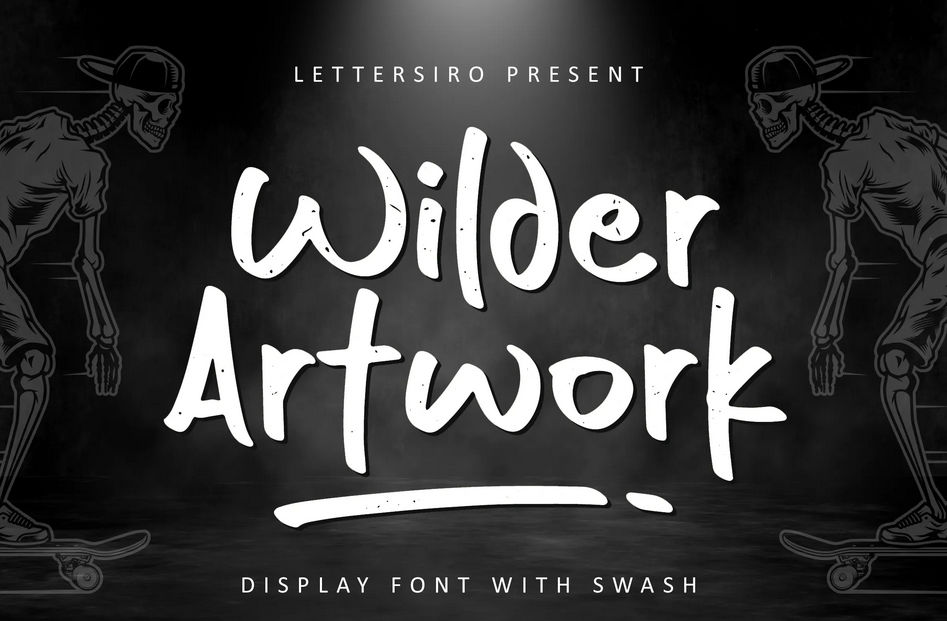
Wilder Artwork captures the appearance of street art without flashy details and exaggerated thickness but with clear lines and free-spirited letter shapes. Exhibit the font on snack and sweets packaging.
2. Dinofont
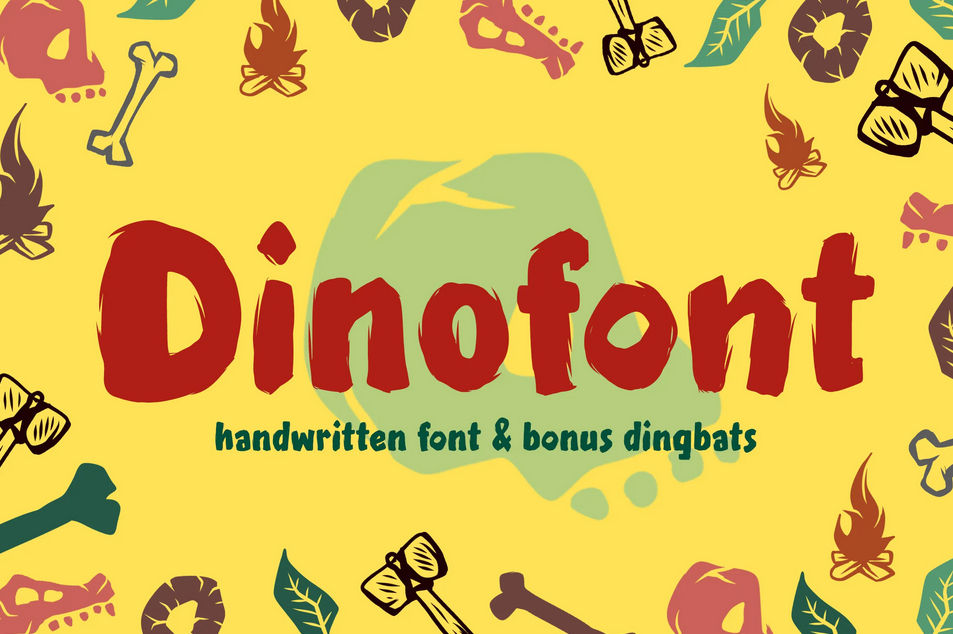
Dinofont’s fur-like letter forms are modest yet playful. Bring the prehistoric appearance of the font on your children-themed food packaging to catch attention.
3. Bros Bear Kids and Educational Font
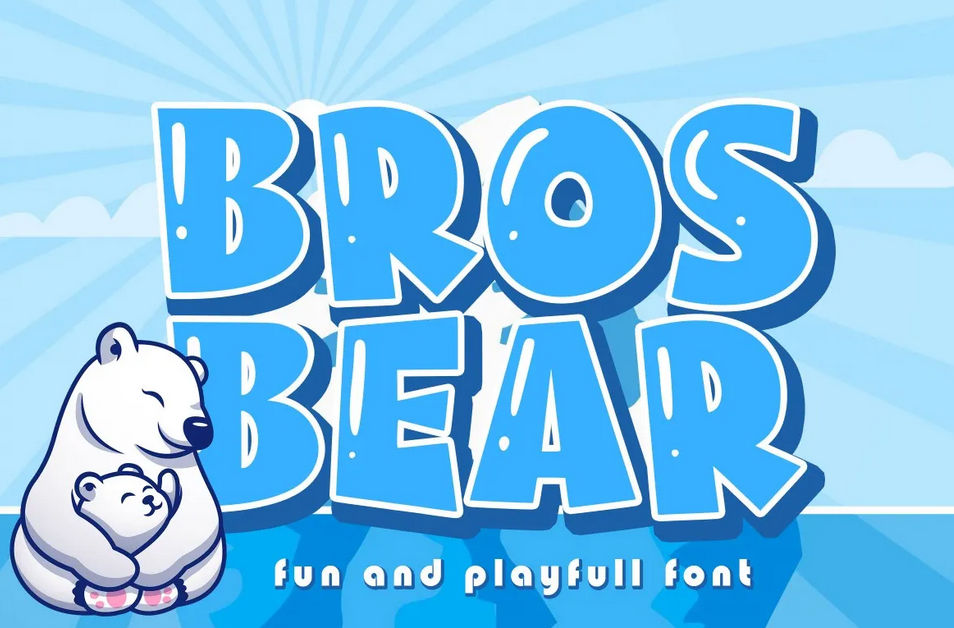
Bros Bear exhibits cheerfulness with the readable boldness and the exclamation mark decorations on the legs. Engage your young audience with the refreshing font.
4. Honey Crafter – Vintage Font
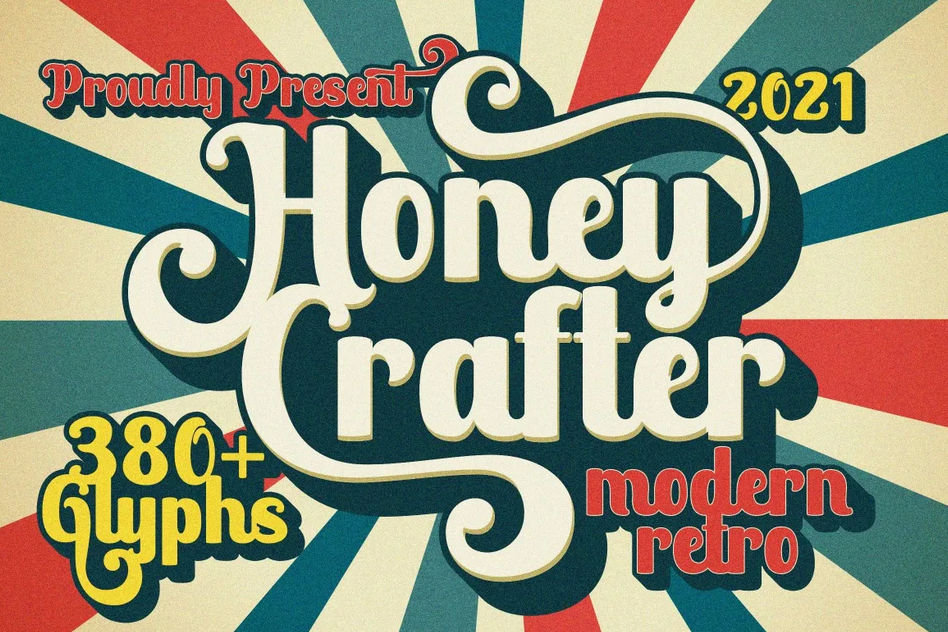
Honey Crafter’s uniqueness is the entertaining swashes with a retro vibe. Apply the legible letter shapes and interesting contrast for your brand name on food packages.
5. Almond
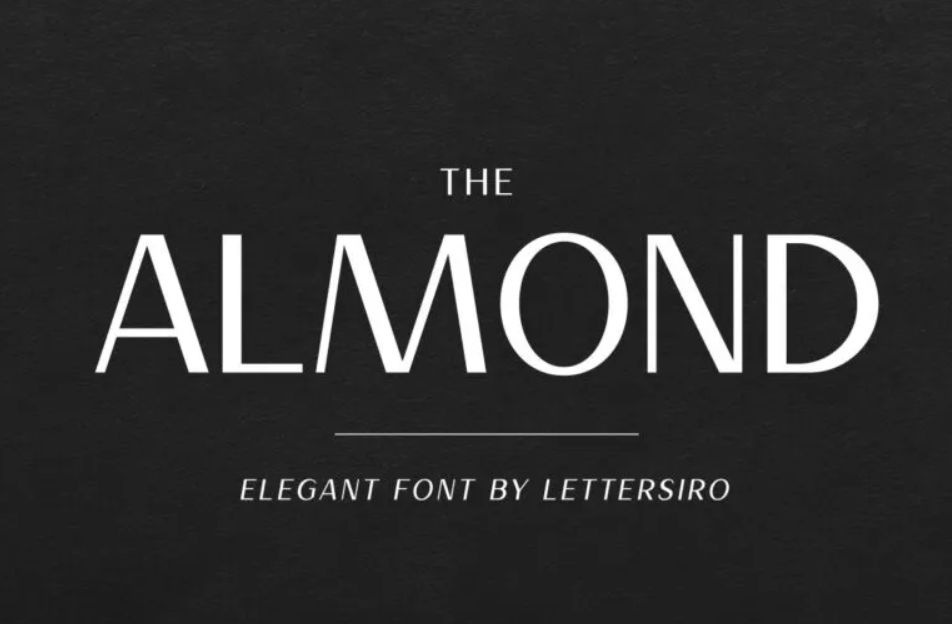
Almond is one of the best fonts for food packaging because of the font’s beautiful contrast and simplicity. Showcase the font to add elegance to your packaging.
6. ZEMBOOD
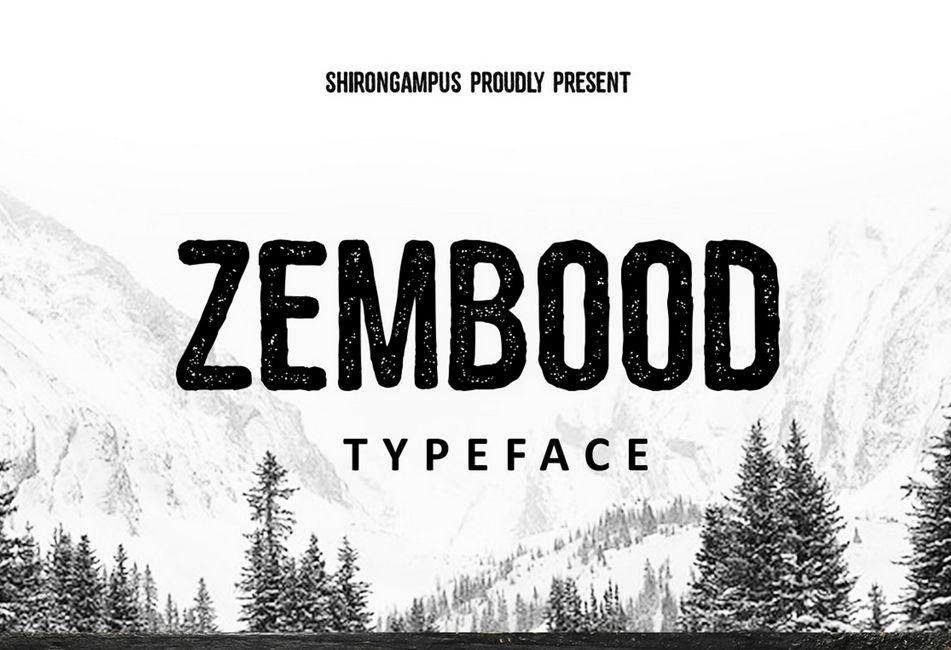
Zembood’s charm is the consistent yet unexaggerated thickness. Additionally, the falling-snow-like texture will make your food packaging more distinctive.
7. Today Easter
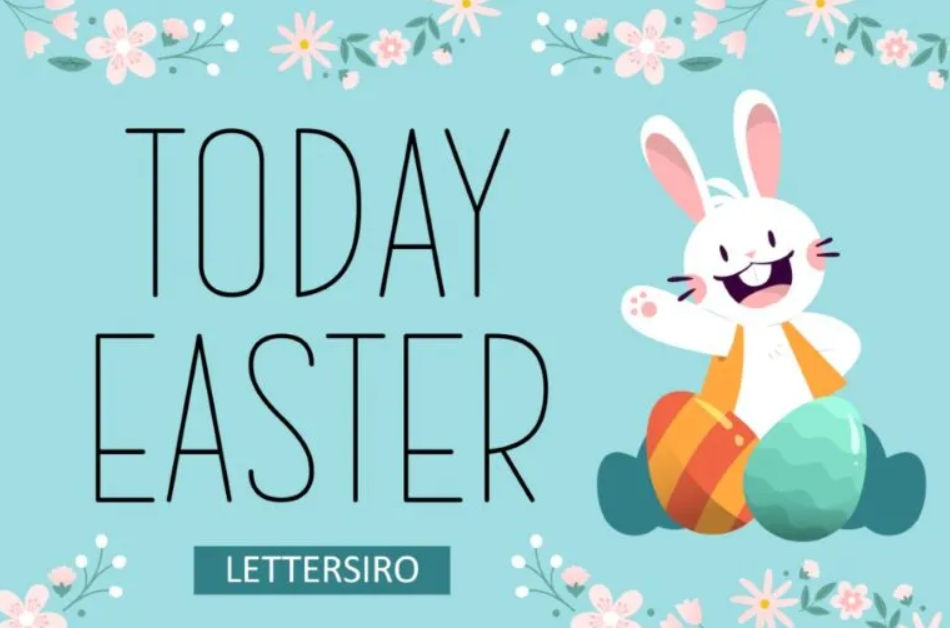
Today Easter creates a good impression with its slender and undecorated letter shapes. Add the font to your food packages to give more elegance.
8. Aged Machine
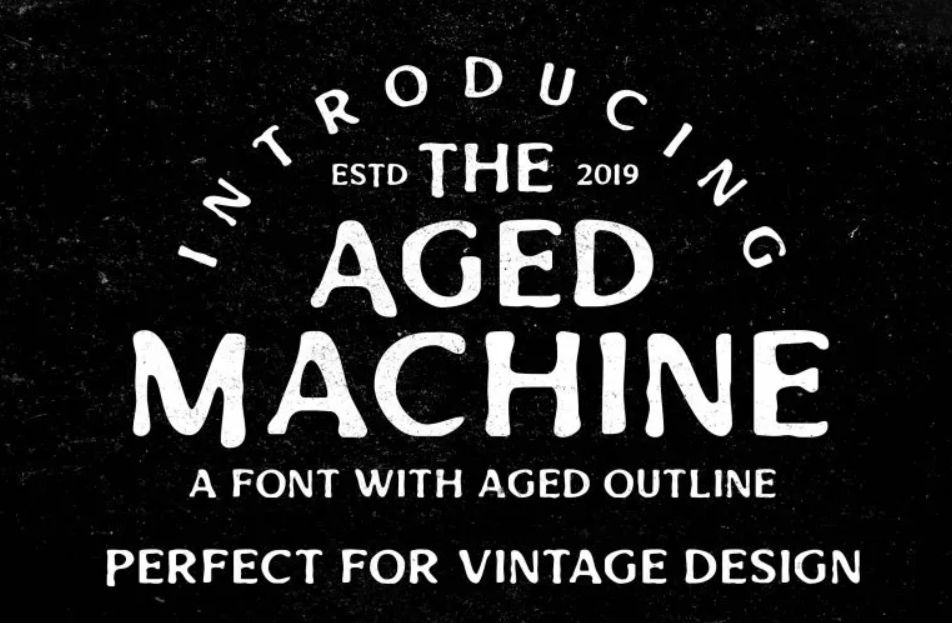
Aged Machine’s galaxy-like texture is so fitting for futuristic packaging designs. The font’s readable and stylish letter shapes can help you both build connections with customers and make their minds blown.
9. Cupcake Factory
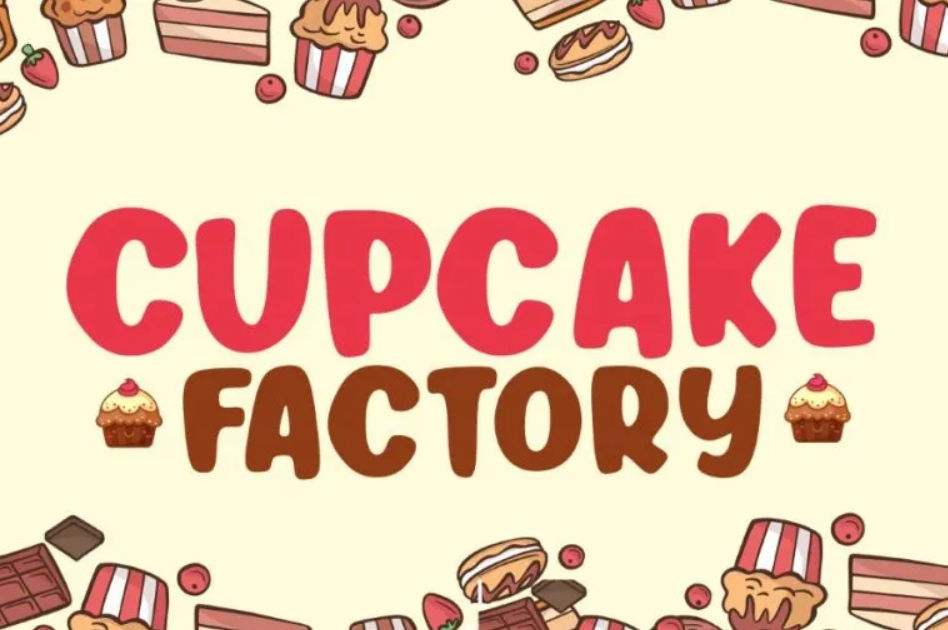
Cupcake Factory presents dynamic boldness without reducing the font’s legibility. The font’s bouncy baseline and thick legs also create a playful vibe. Exhibit the lively letter shapes on your dessert-related food packaging.
10. Comic Hunter
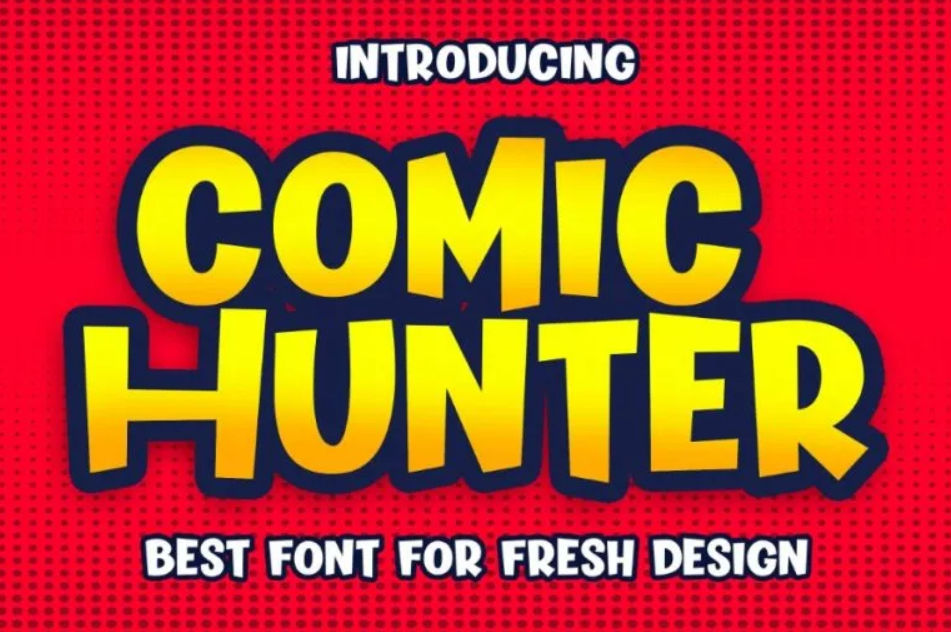
Comic Hunter’s contemporary letterforms are a feast for the eyes. The constant boldness is also balanced and fun-looking. The balanced boldness will also increase the legibility of your candies and snack packaging.
11. Friday Font
Friday Font’s subtle wavy lines are casual yet readable. The slanted axis is also fashionable and pleasing to see. Use the stylish font to give an approachable vibe to your food packaging designs.
12. Blank Smile
Blank Smile is one of the best fonts for food packaging whose letterforms are handwritten and plain. Also, the thickness never hinders the font’s readability. Additionally, contrast, terminals, and ligatures are satisfying and suitable for chocolate packaging.
13. Vintage Quotes
Vintage Quotes introduces the classy strokes that illustrate the fountain pen’s writing, yet the stylish letterforms are friendly and modern. Combine the font with a sans serif one to create a unique and readable typeface.
14. HALVA
Halva’s slender lines are charming and legible. The font’s beautiful and classic baseline is also formal and lovely. Showcase the simple and graceful strokes on your diet food packaging.
15. Calling Heart
Calling Heart’s oblique axis and handcrafted strokes are undoubtedly eye-catching. The font’s swashes at the last letter are also elegant. The balanced thickness can be combined with a serif font to increase legibility.
More Food Packaging Fonts?
The best fonts for food packaging prioritize clarity with their simple letter shapes because their purpose is to properly deliver your message. However, modest details can be necessary to create an extraordinary typeface that represents your brand’s voice.